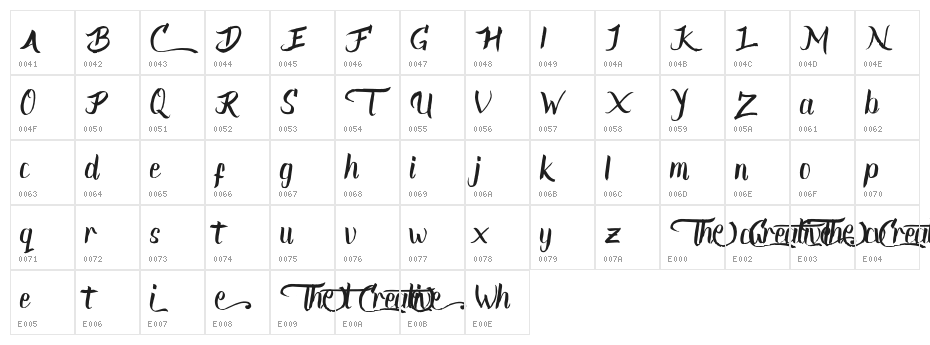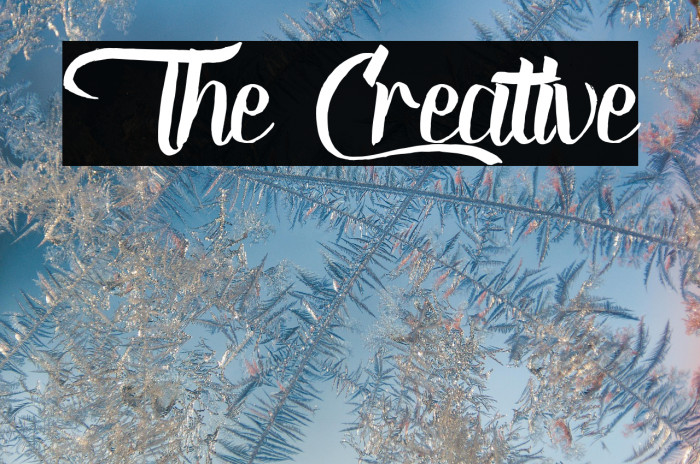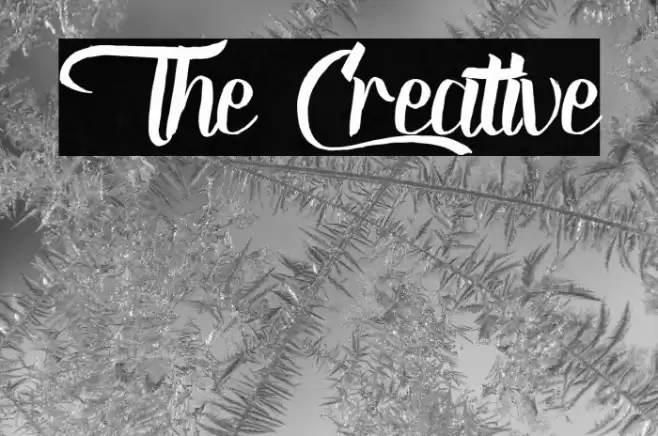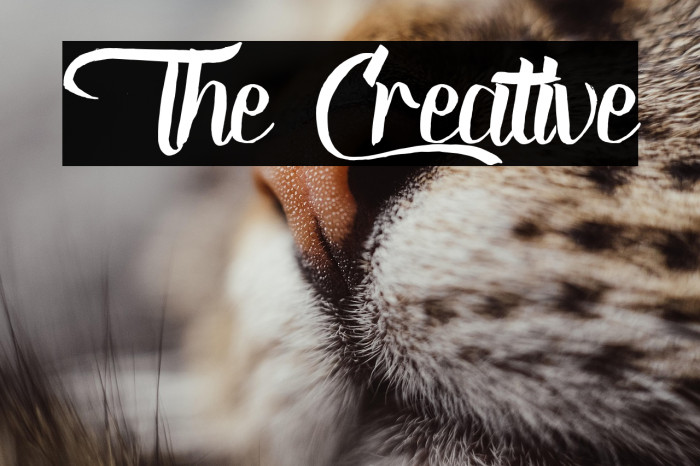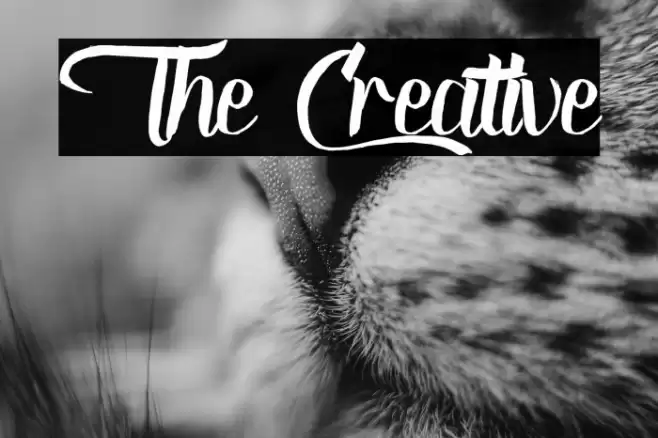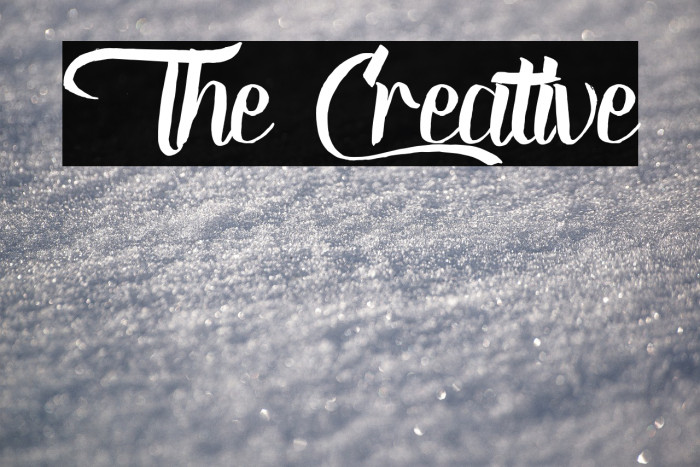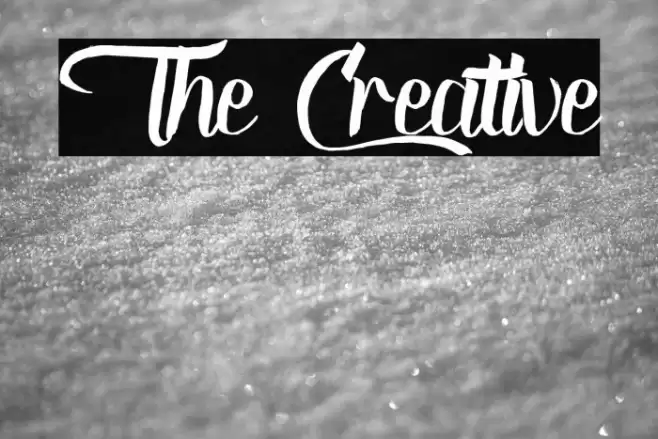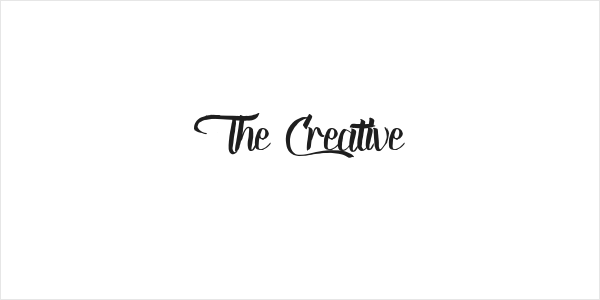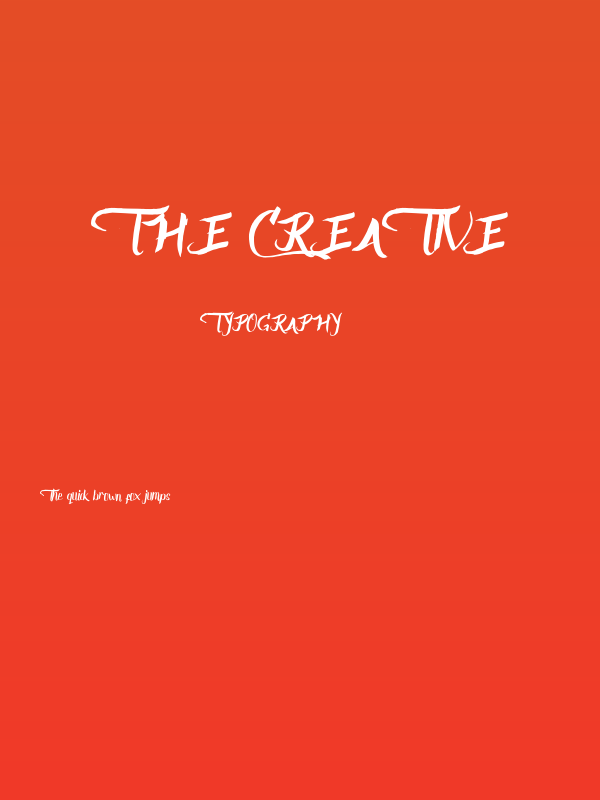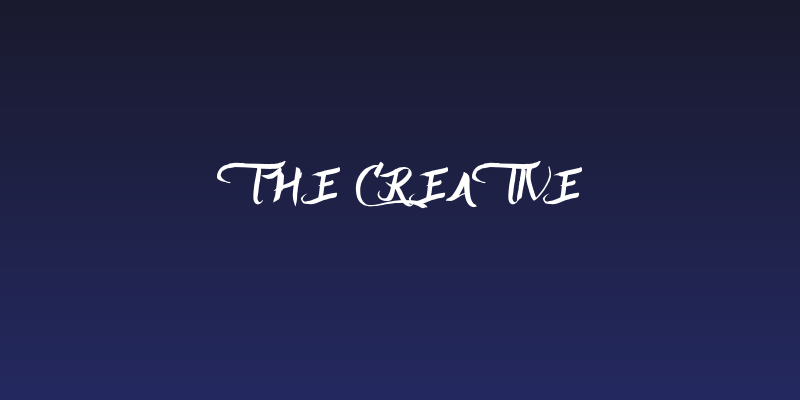
The Creative Font
The Creative Description
This font features a dynamic and expressive script style, characterized by its fluid and elegant strokes. The uppercase letters exhibit a dramatic flair with sweeping curves and varying line thickness, creating a sense of movement and sophistication. The lowercase letters maintain a cohesive flow, complementing the uppercase with their graceful and slightly slanted forms. The overall appearance is artistic and stylish, making it suitable for creative and decorative applications. The font's unique style is further enhanced by its high contrast between thick and thin strokes, adding to its visual appeal.